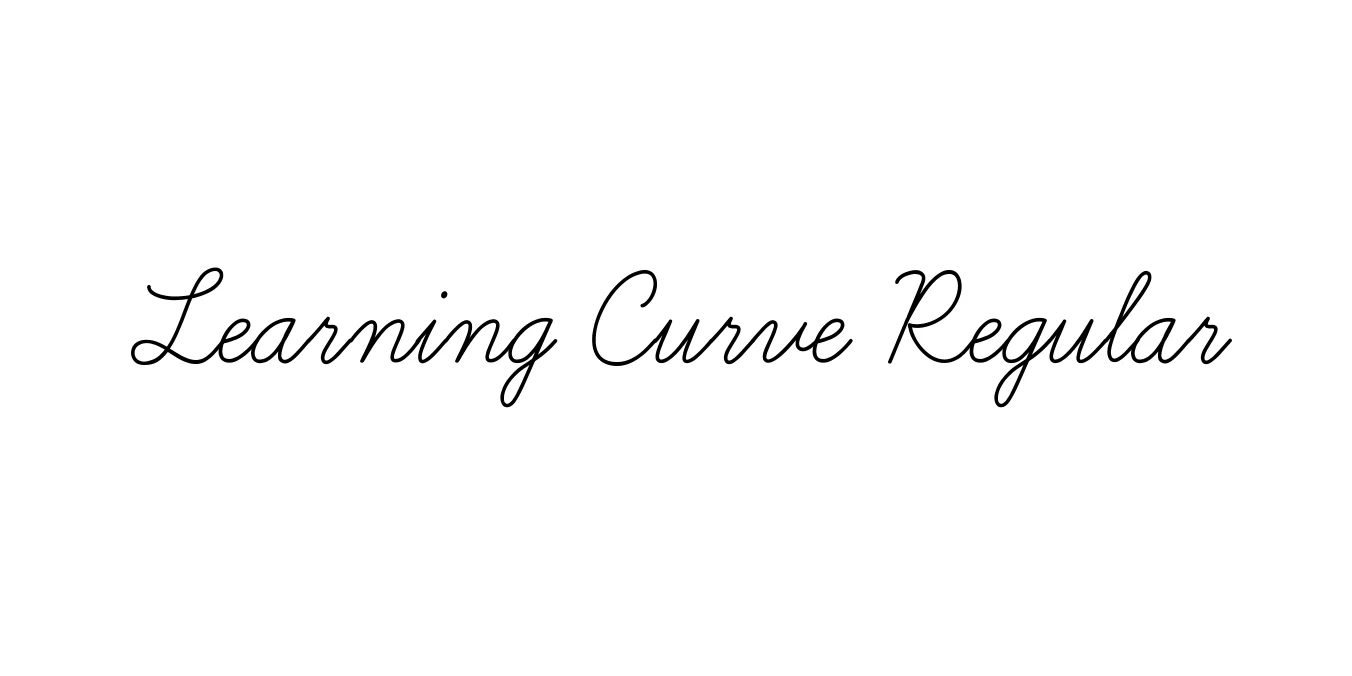
Learning Curve Regular
Designed by Jess McCarty
Learning Curve Regular was meticulously crafted by Jess McCarty of Blue Vinyl Fonts to mimic the traditional cursive handwriting styles taught in primary schools. Unlike more decorative script fonts, Learning Curve is designed with clarity and instructional utility in mind, making it an essential tool for educators and parents. It captures the essence of classic penmanship practice while providing a clean, digital-friendly aesthetic that works across various platforms.
Over the years, this typeface has become a favorite in the educational design community. Its primary strength lies in its simplicity and the inclusion of various styles, such as dashed versions for tracing exercises. This makes Learning Curve not just a font, but a functional resource for teaching children the art of cursive writing while maintaining a professional look for school-related stationary and documents.
Learning Curve Regular Best Uses
Creating handwriting practice sheets and instructional materials for students.
Ideal for personalized greeting cards, vinyl cutting projects, and scrapbooking.
Adding a nostalgic or educational feel to blog headers and school-related websites.